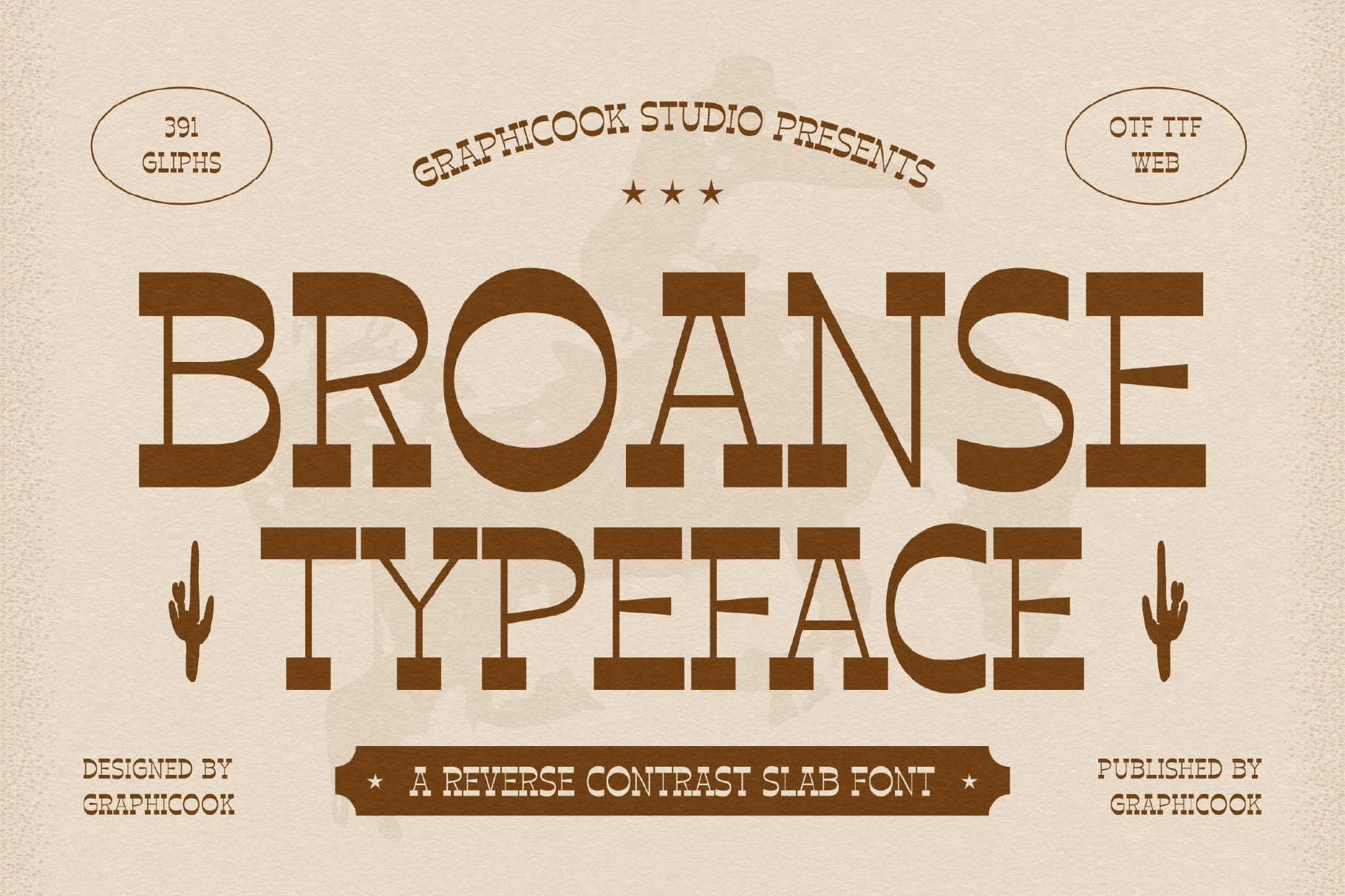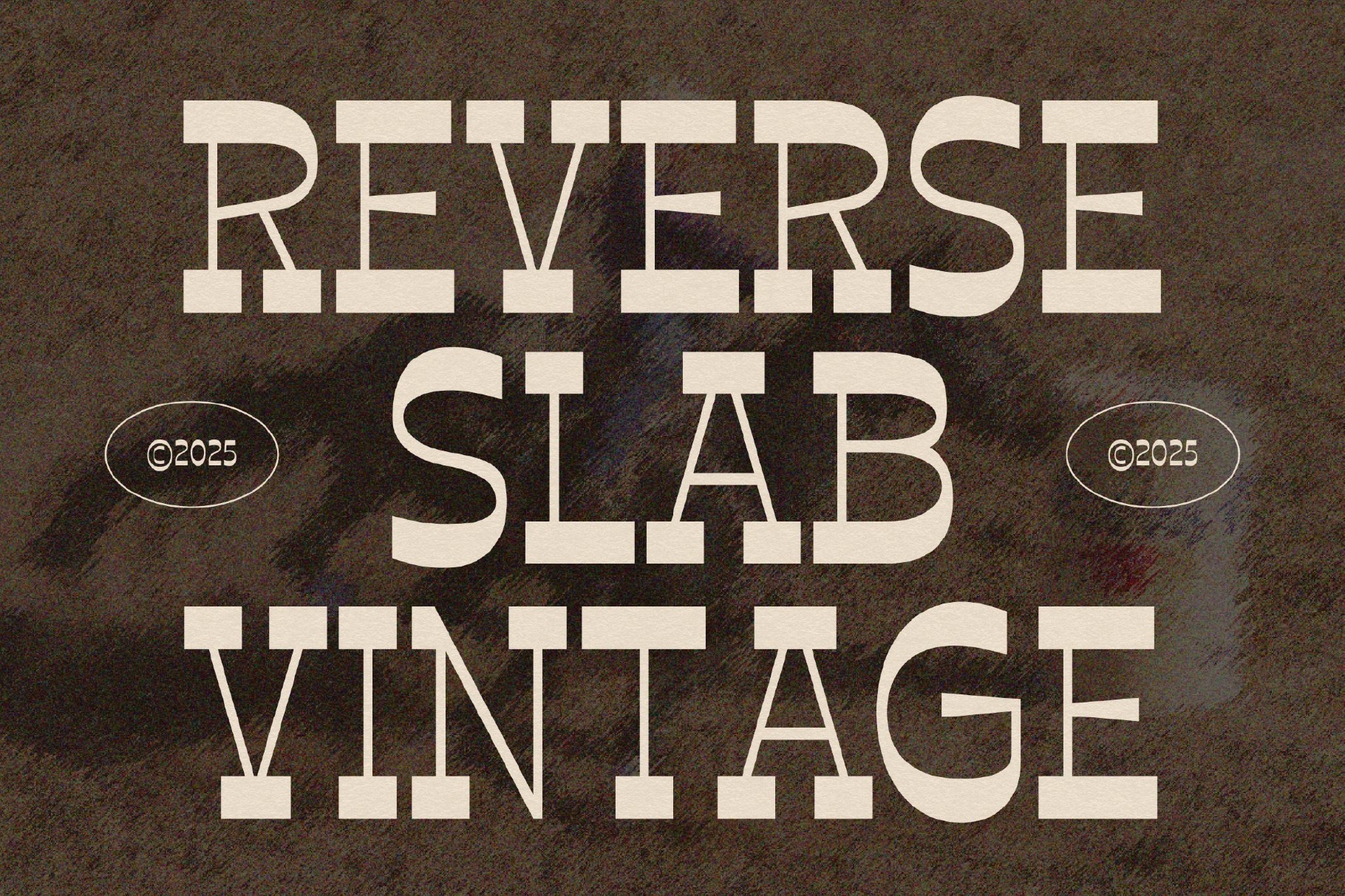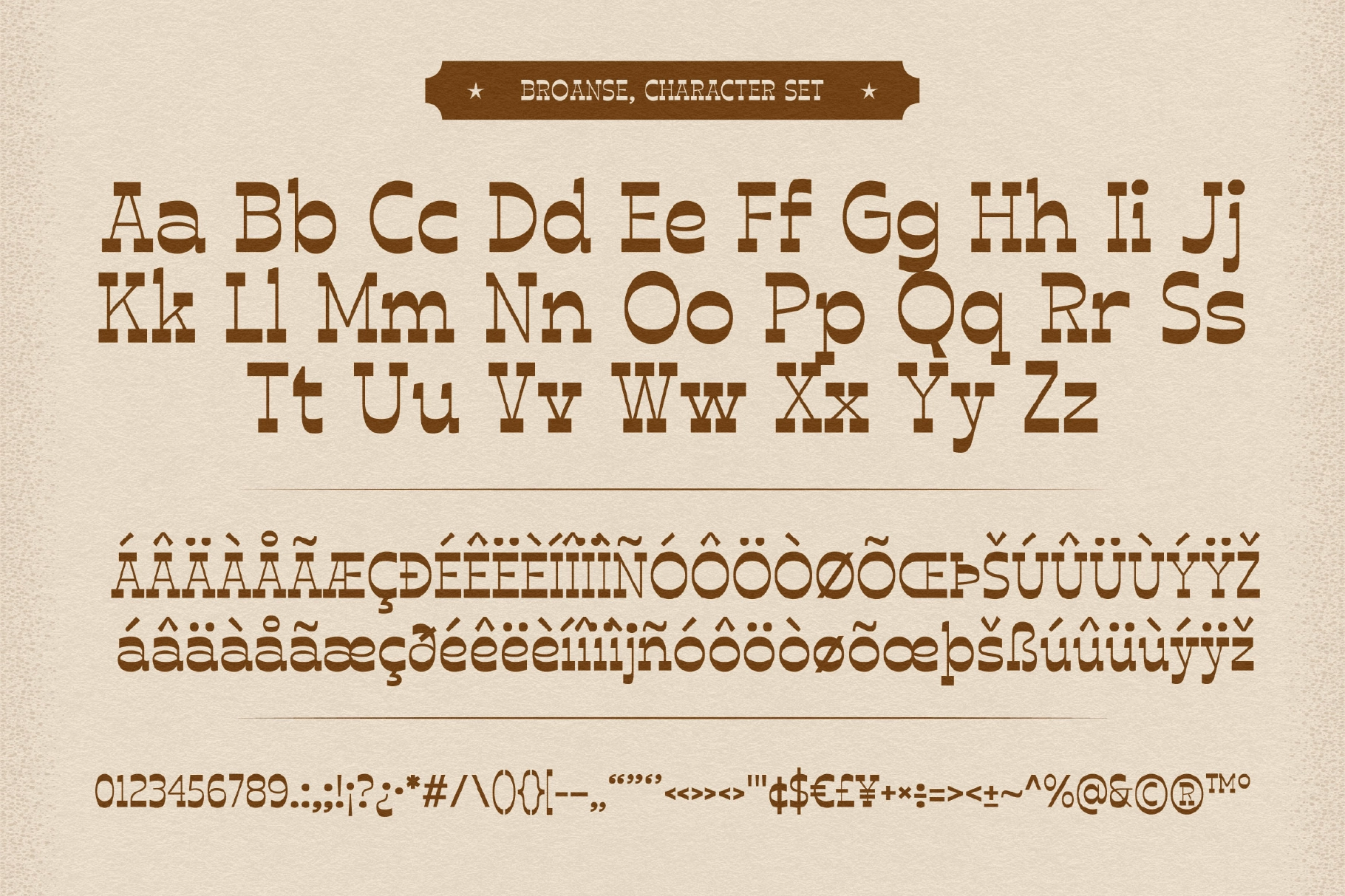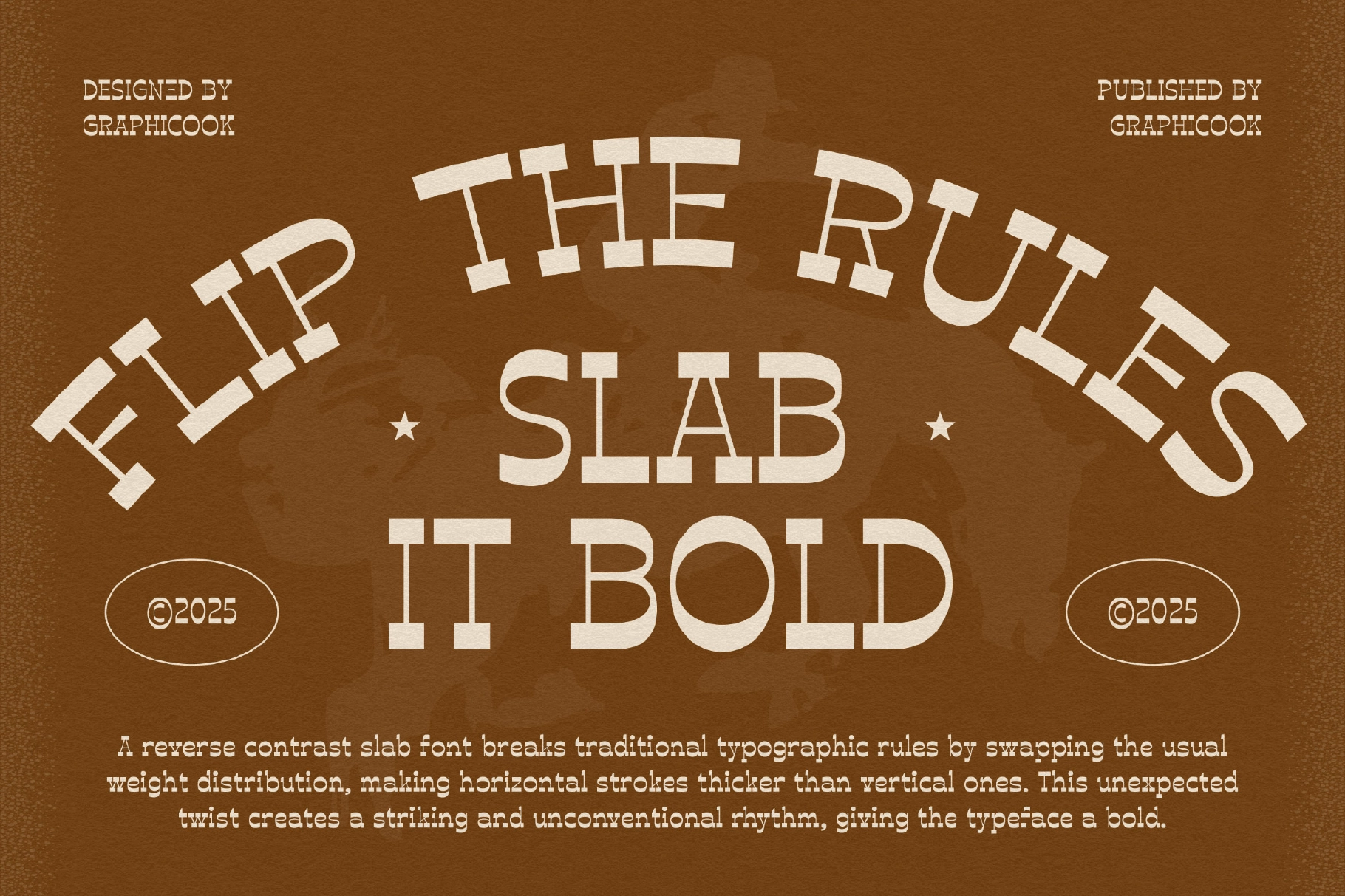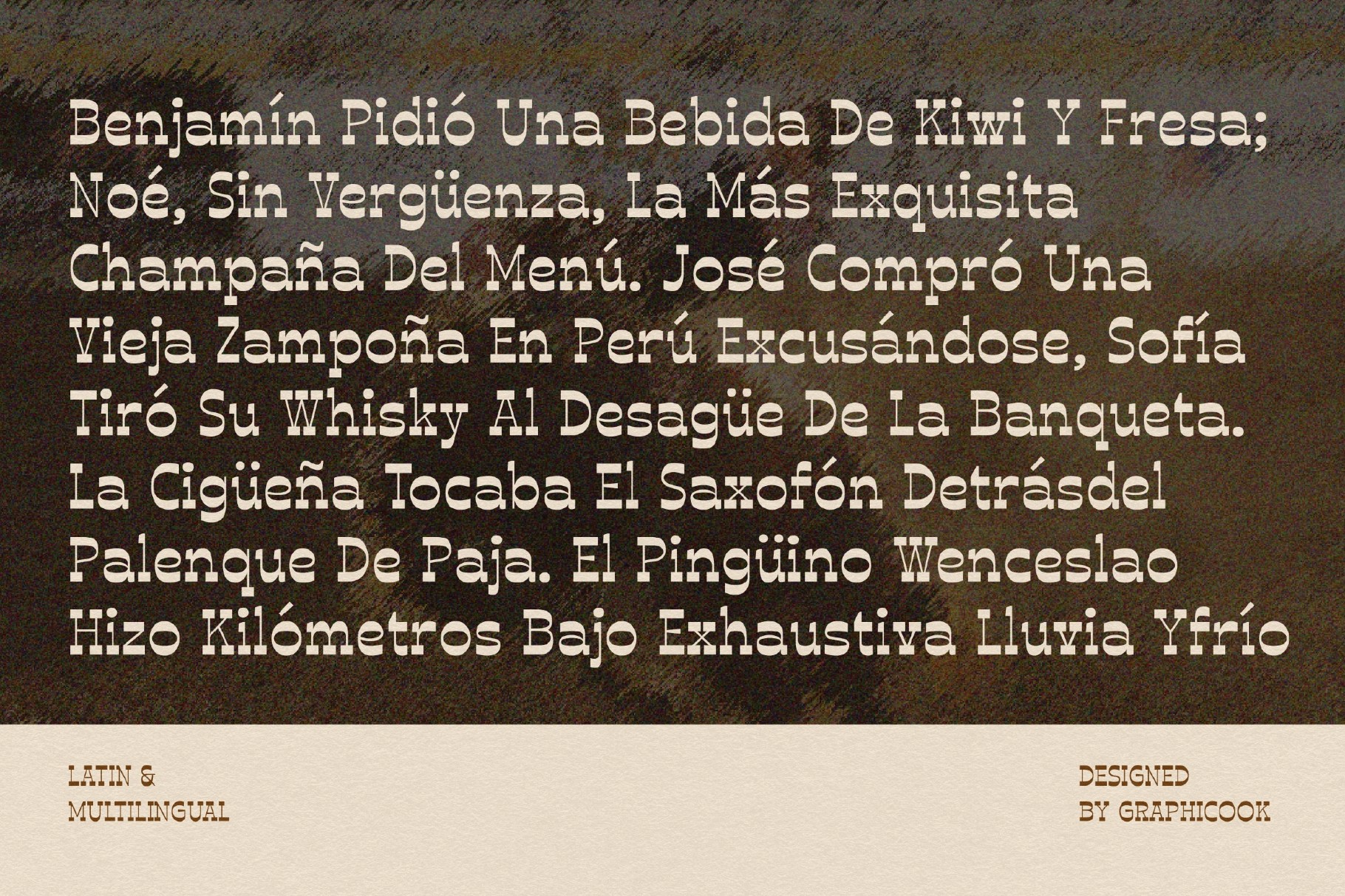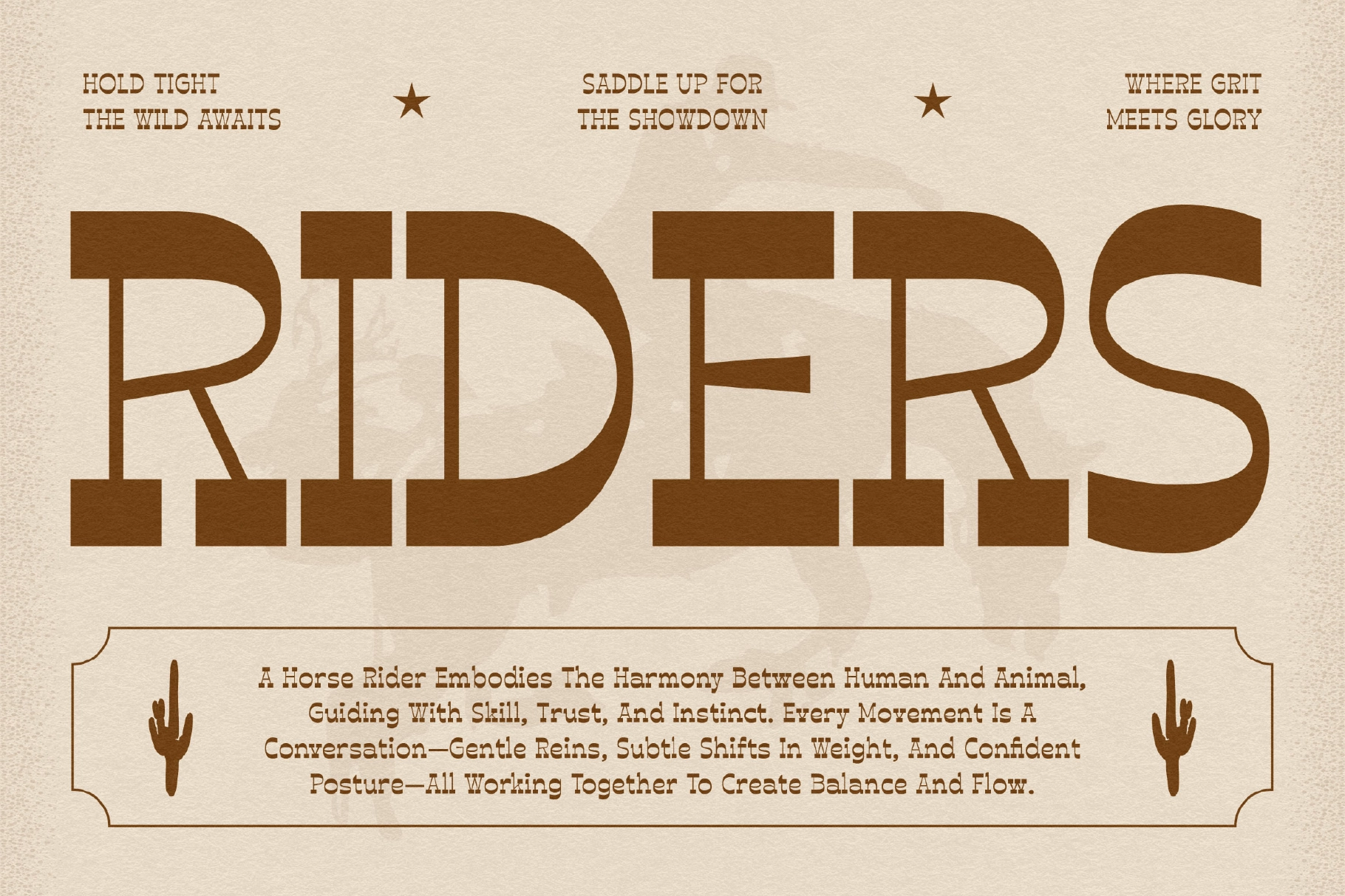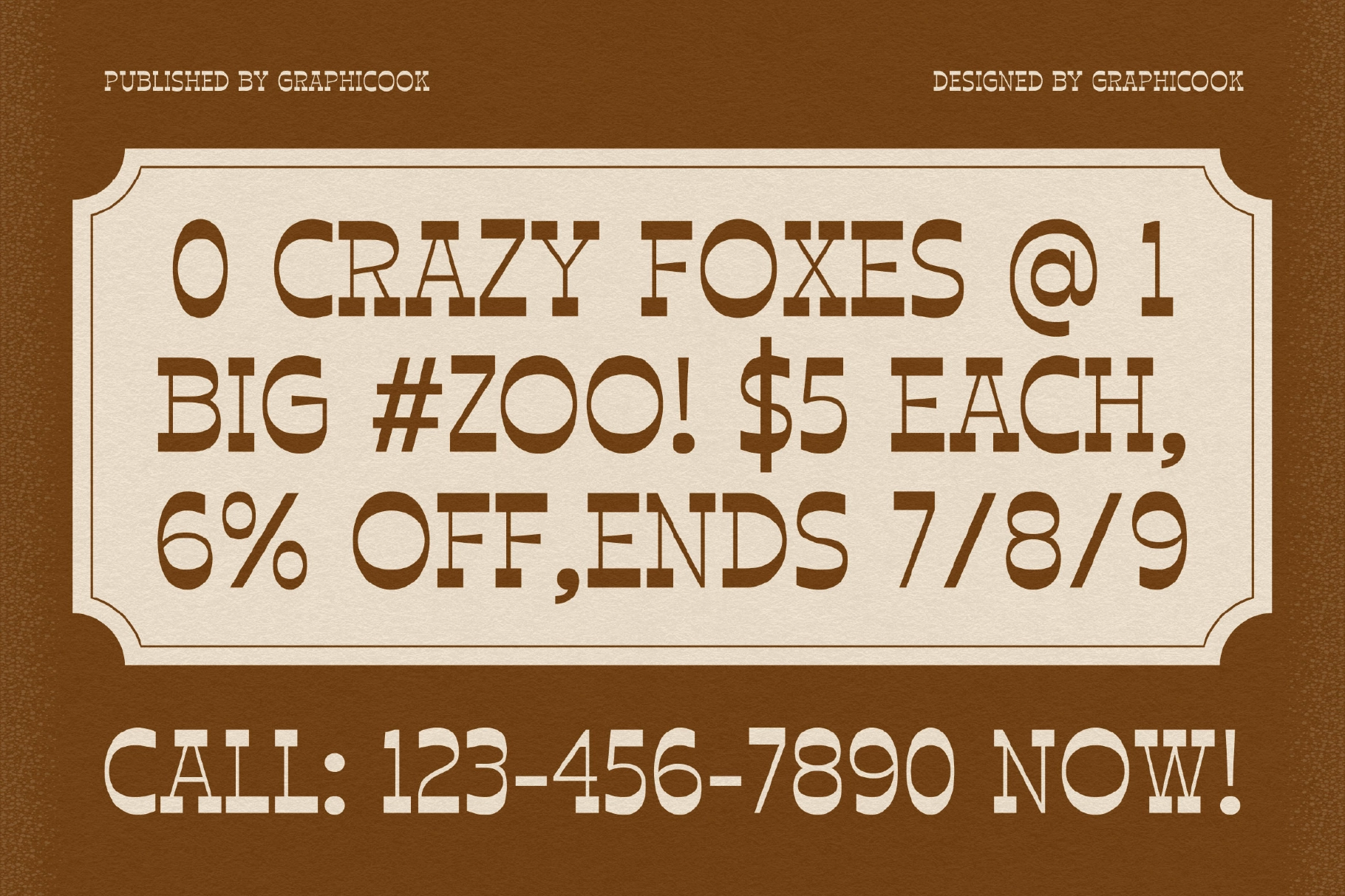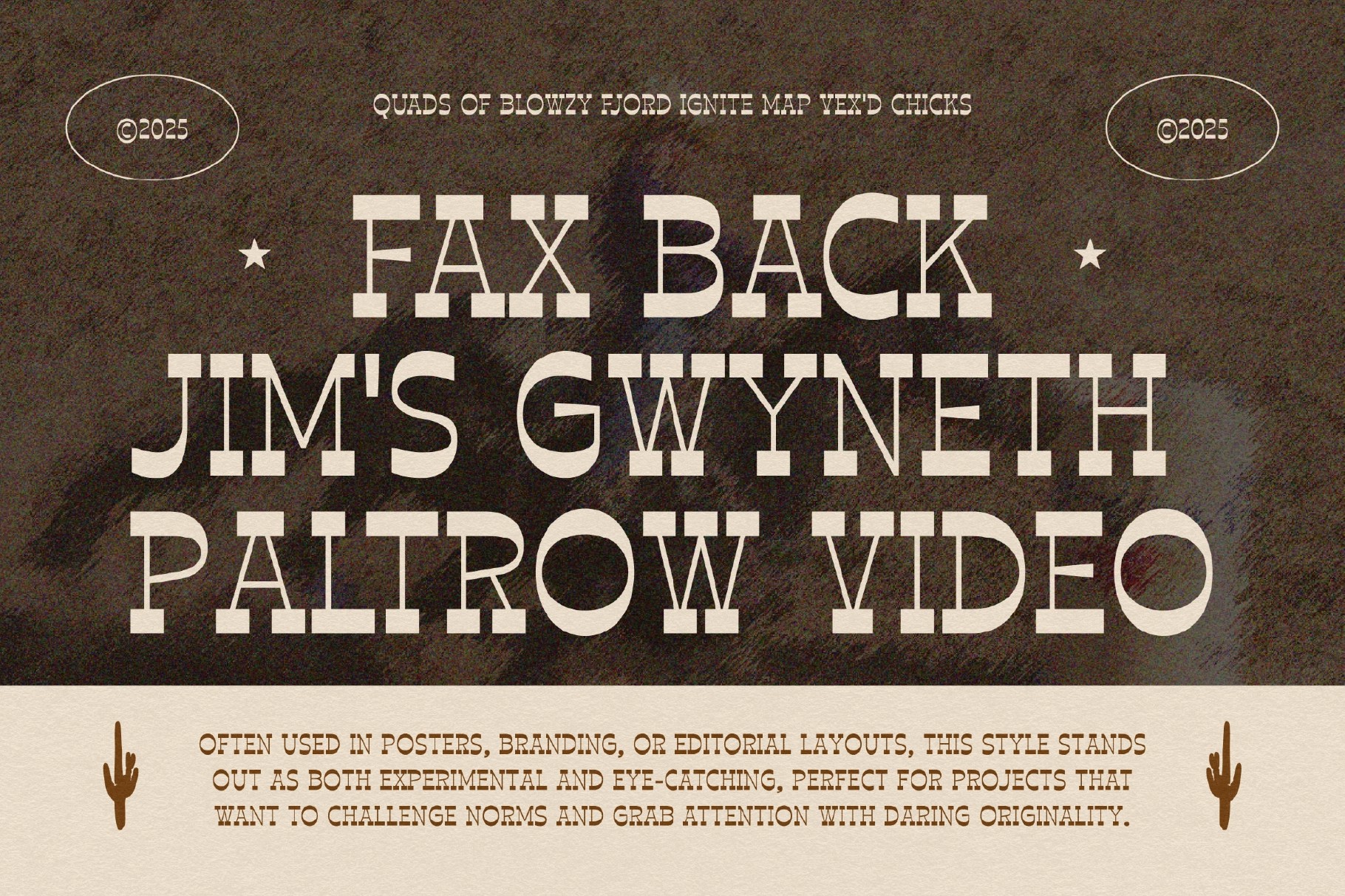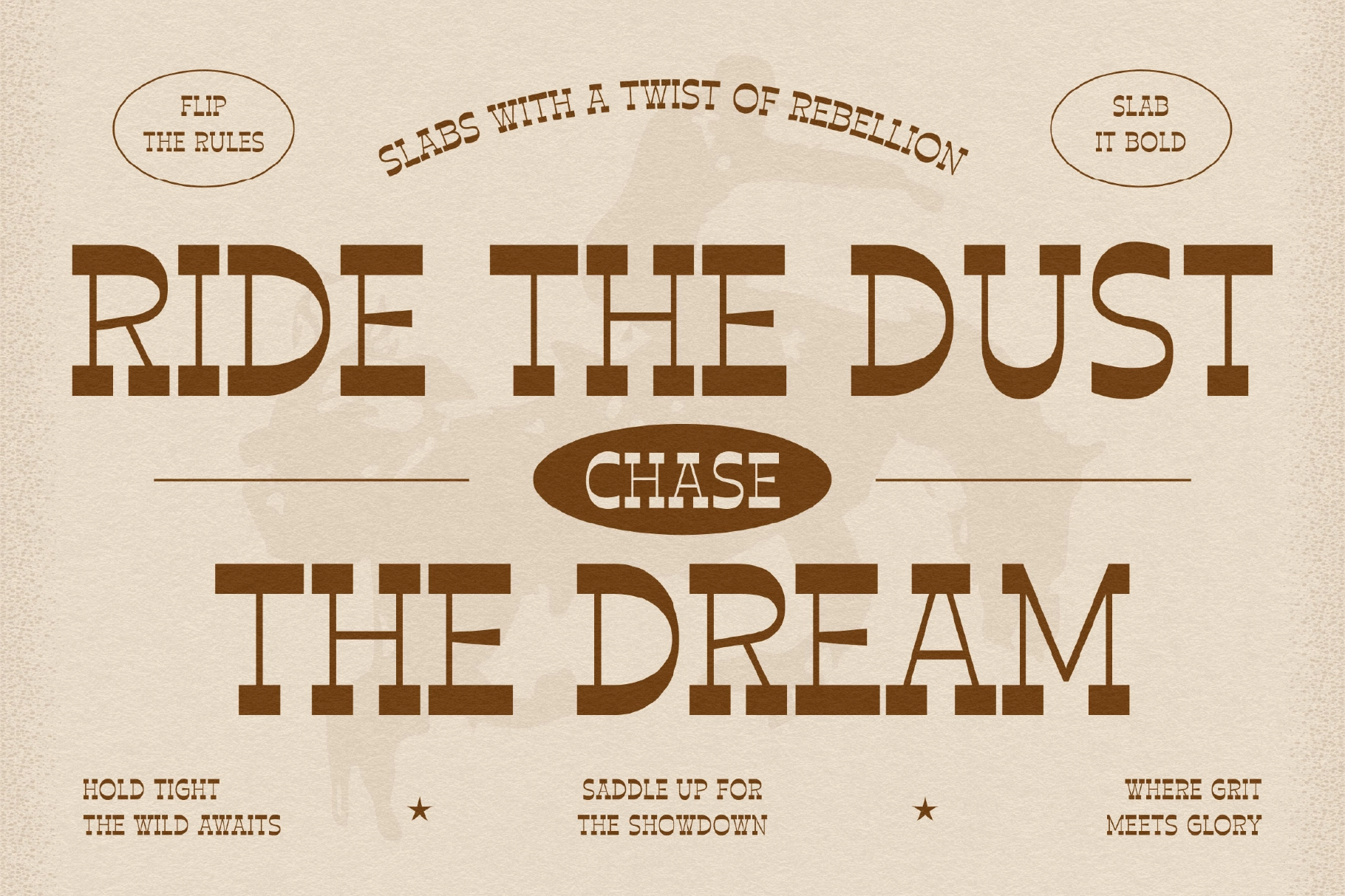
Broanse
Broanse is a slab-serif font featuring bold, Western-inspired letterforms. With thinner verticals and thicker horizontals, it offers a distinctive and eye-catching appearance—perfect for headlines, posters, and vintage-style packaging.